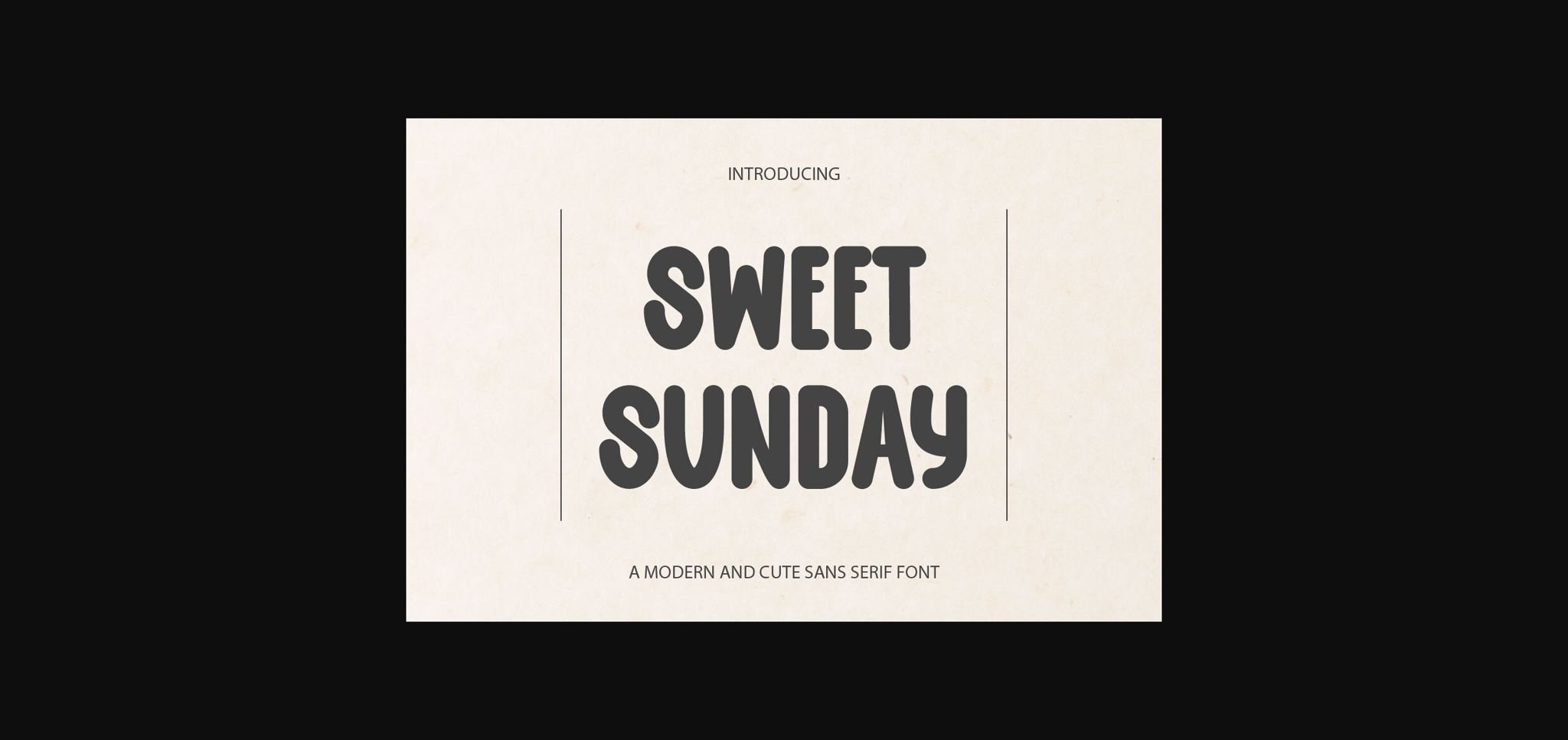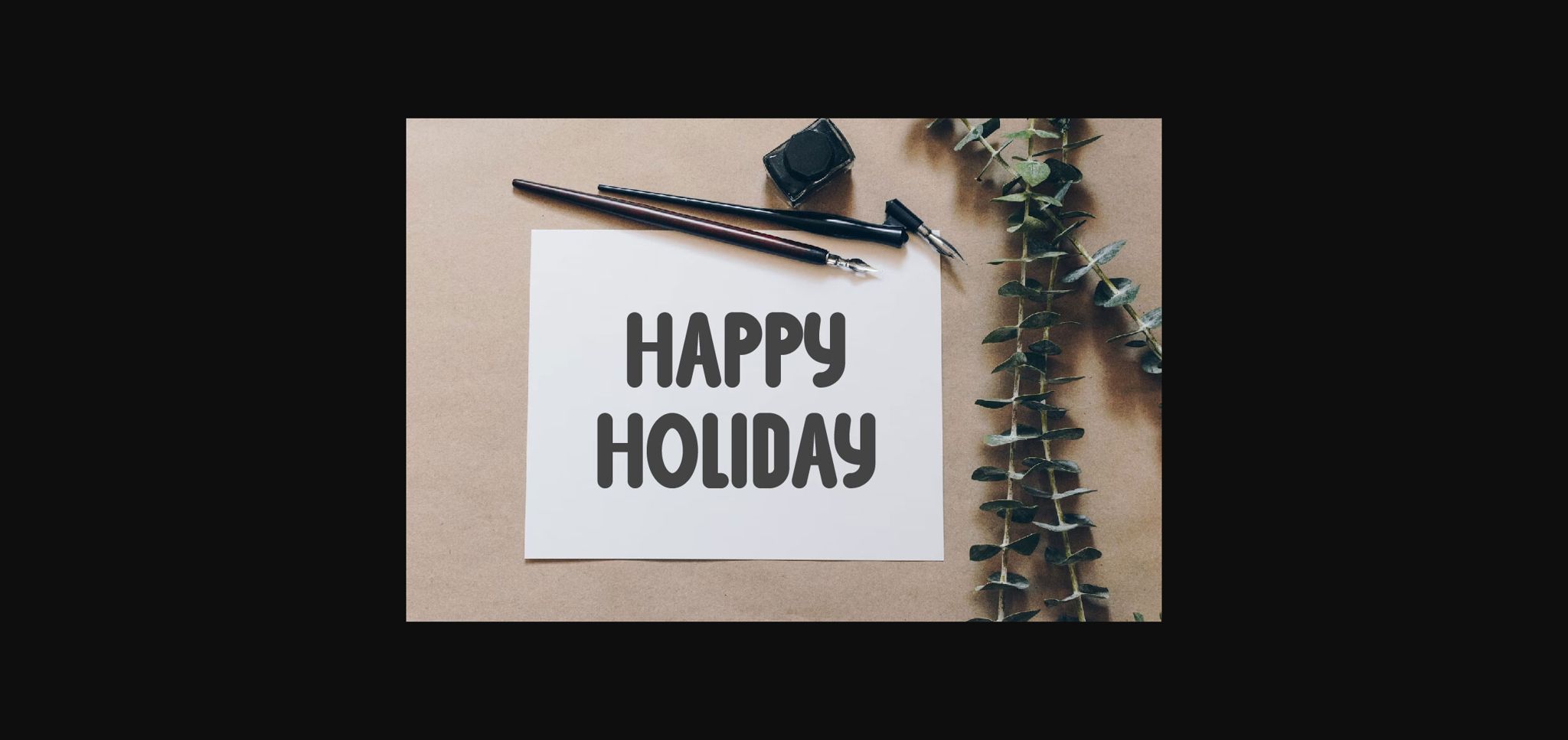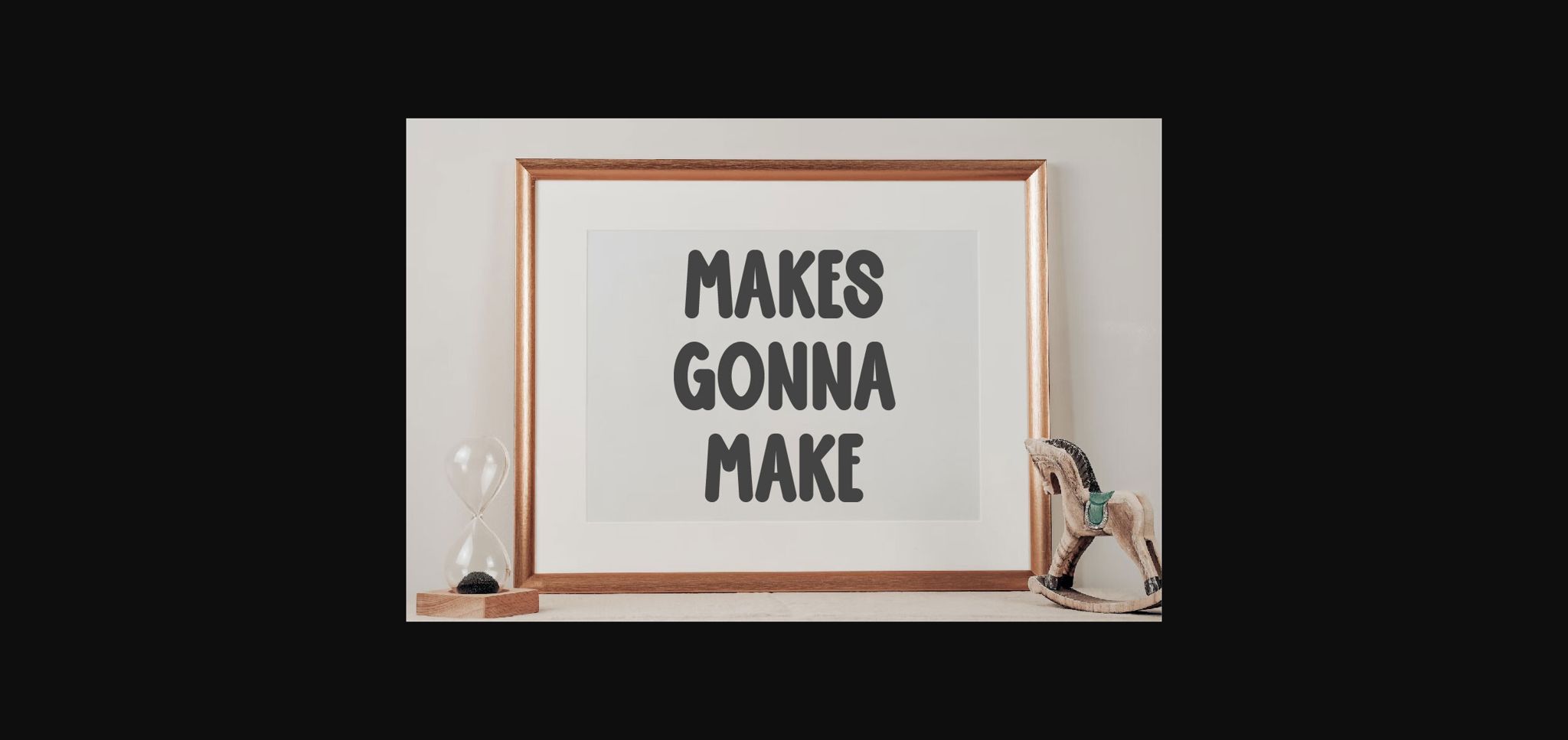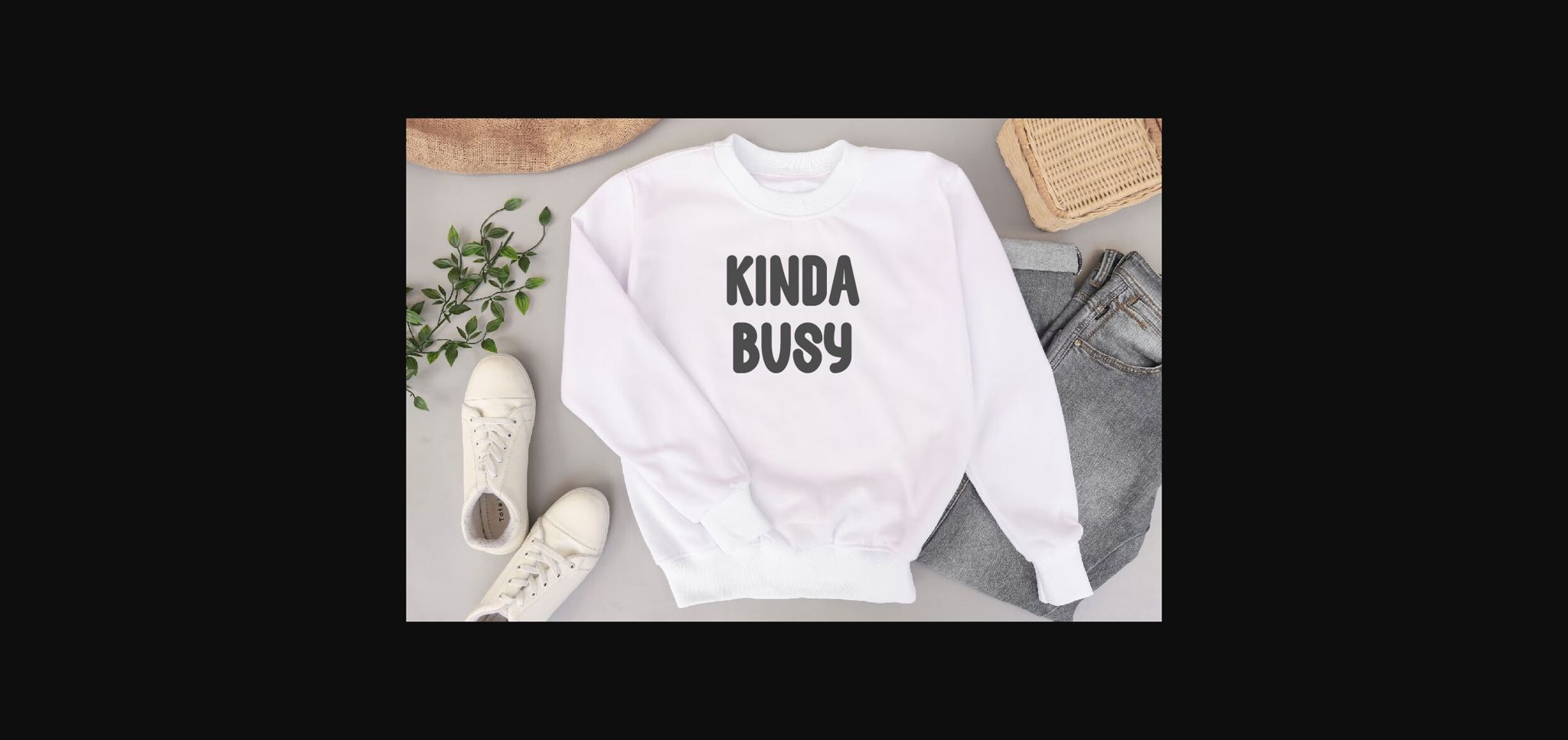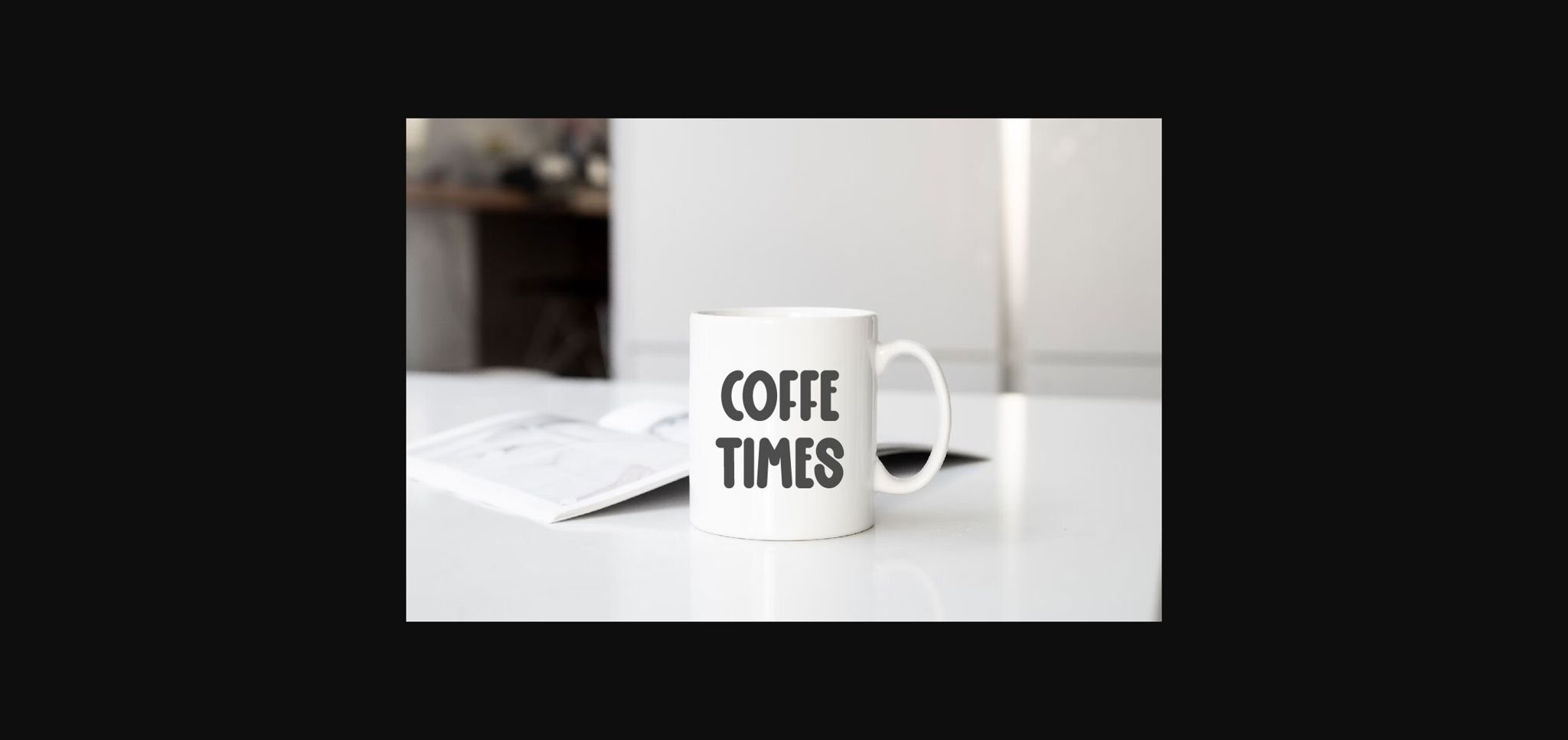
Sweet Sunday Font
About Sweet Sunday Font
Sweet Sunday is a modern and cute sans serif font, this font is perfect for greeting cards, wedding, gift labels, mugs, t-shirts, quotes, label, branding, tote bag, packaging, social media, etc. Use it to create spectacular and interesting designs!